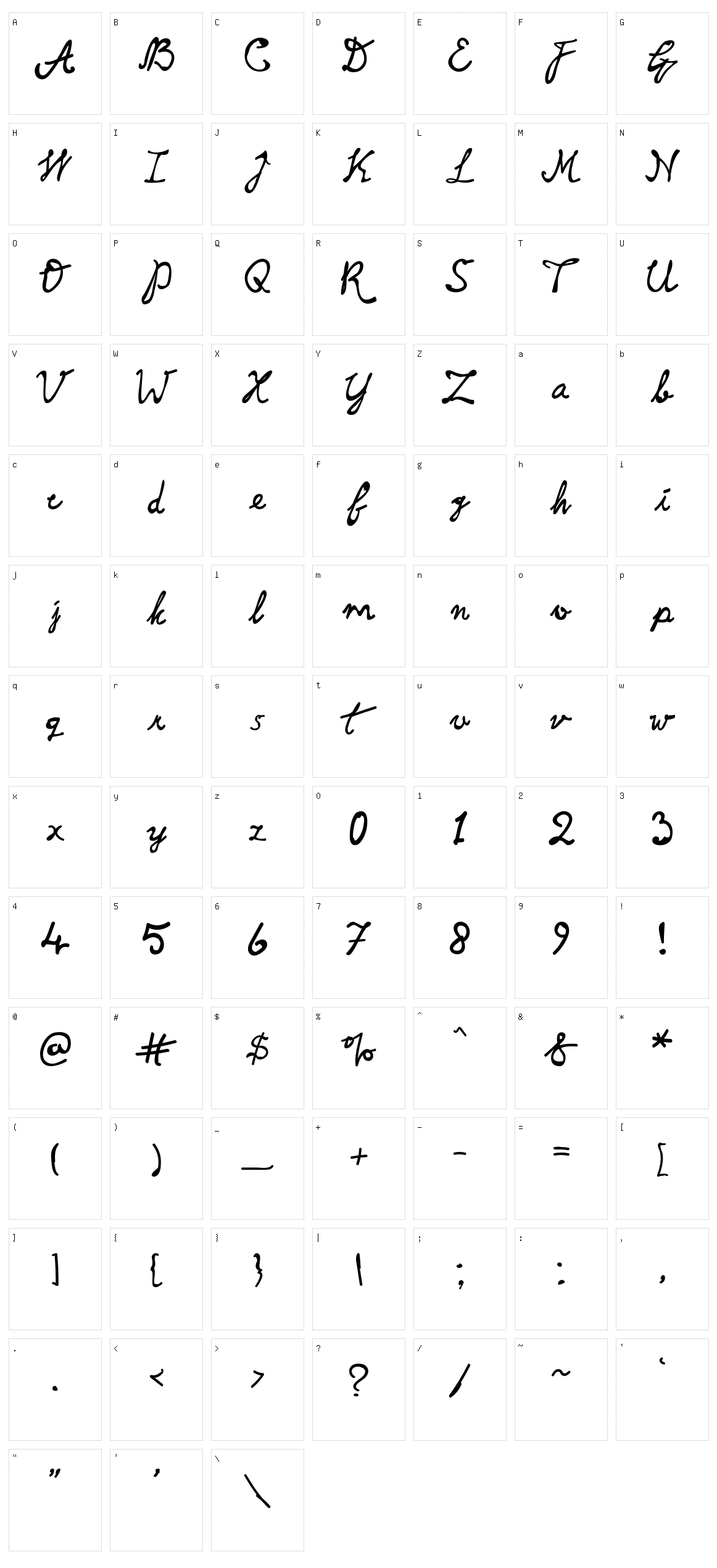
The free font Black Pirates is carefully designed by Personal Design, showcasing a thoughtful balance of creativity and usability and falls under the Script font style. When you download the ZIP file, it contains only 44.5 KB of font files, making it lightweight and quick to download. Please review the license details below to understand permitted usage and distribution rights. If license information is not available, we recommend using this font for personal projects only or contacting the author directly for commercial usage permissions.